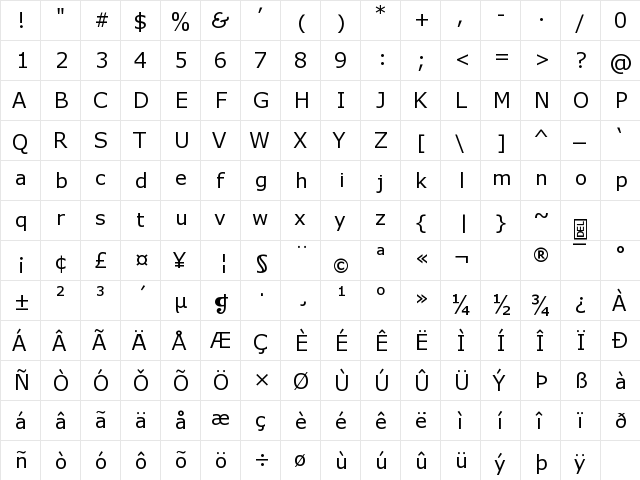
Aroania Regular
| Designer | George Douros |
Design Context for Aroania Typeface
Aroania takes a measured approach to typography — its balanced proportions and neutral character make it a reliable workhorse for both digital and print work.